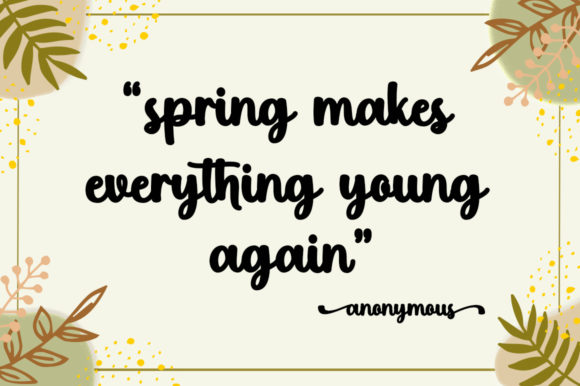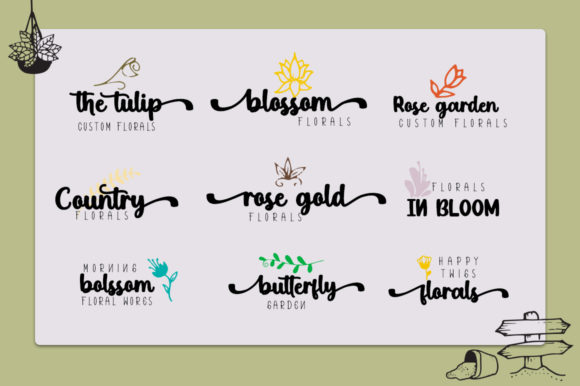
Cute Spring Font
db-ku.com - Script & Handwritten -- Cute spring is an elegant and dainty duo styled handwritten font. This original look will appeal to a wide range of crafty ideas, from letterheads and titles, to stationery.